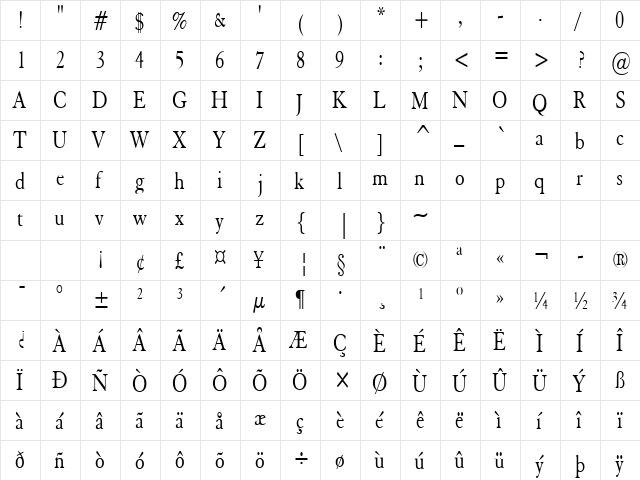
Elephant-Condensed Normal
Elephant-Condensed Normal Font Preview
Elephant-Condensed Normal
Design Context for Elephant-Condensed Typeface
Elephant-Condensed is a composed and adaptable typeface that performs quietly and consistently across a wide range of design contexts. Its narrow stance lets it pack a punch even in space-constrained designs.